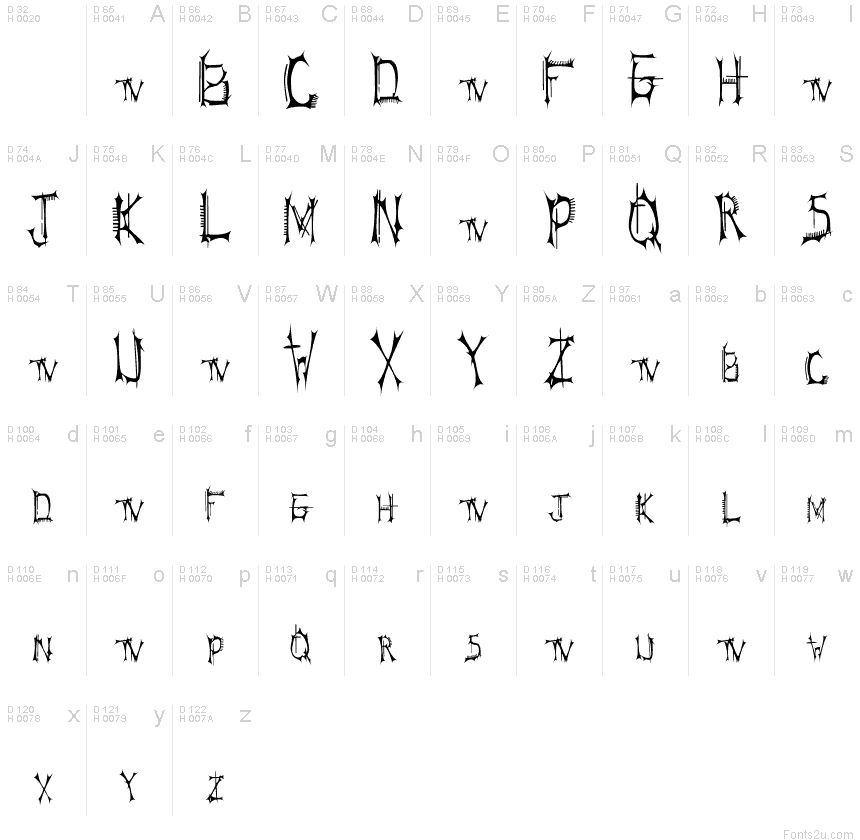
BT Speartooth TRIAL VERSION
BT Speartooth font by Brandon Thomas twists classic letterforms into jagged, thorny silhouettes that feel sharp to the touch. The irregular spikes and narrow, vertical proportions create an uneasy rhythm that instantly suggests horror themes and dark fantasy. Offered as a free font, it delivers a lot of mood with very little text.
This free font works best where you want an ominous edge: horror movie titles, Halloween posters, metal band logos, dark game interfaces, book covers, or eerie event flyers. BT Speartooth font holds up strongly at larger sizes, and pairs well with a clean sans serif set in small supporting text for readability.